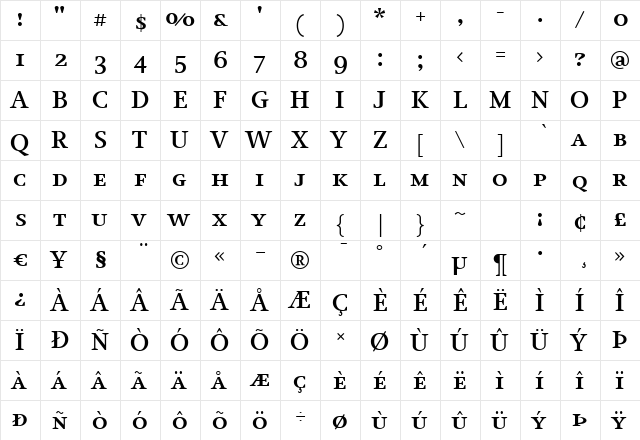
JudeBoldSmallCaps Regular
Design Context for JudeBoldSmallCaps Typeface
JudeBoldSmallCaps offers clean, dependable letterforms without strong stylistic allegiance, making it a practical choice for designers who need flexibility. The heavy weight commands attention and anchors typographic hierarchies.